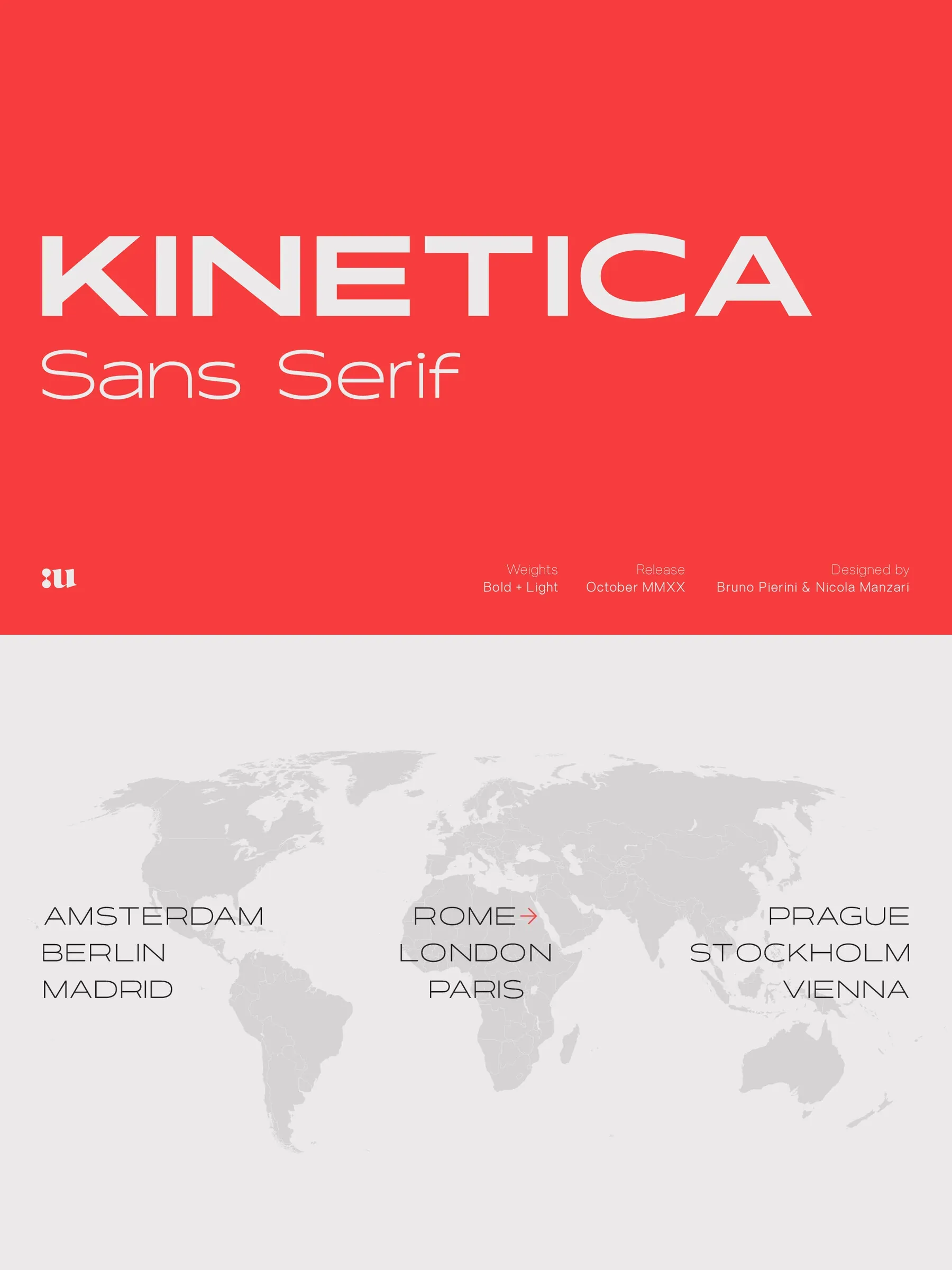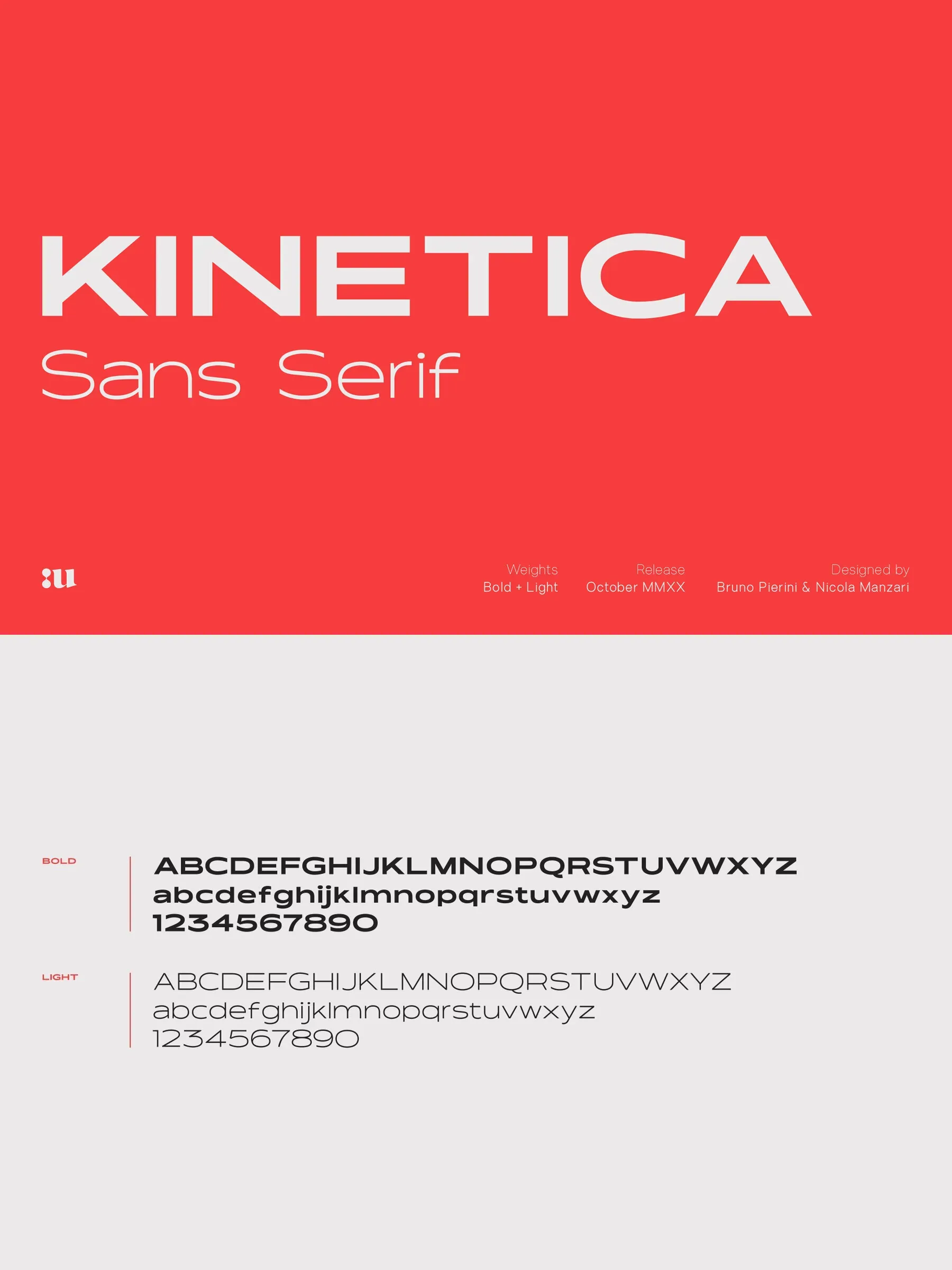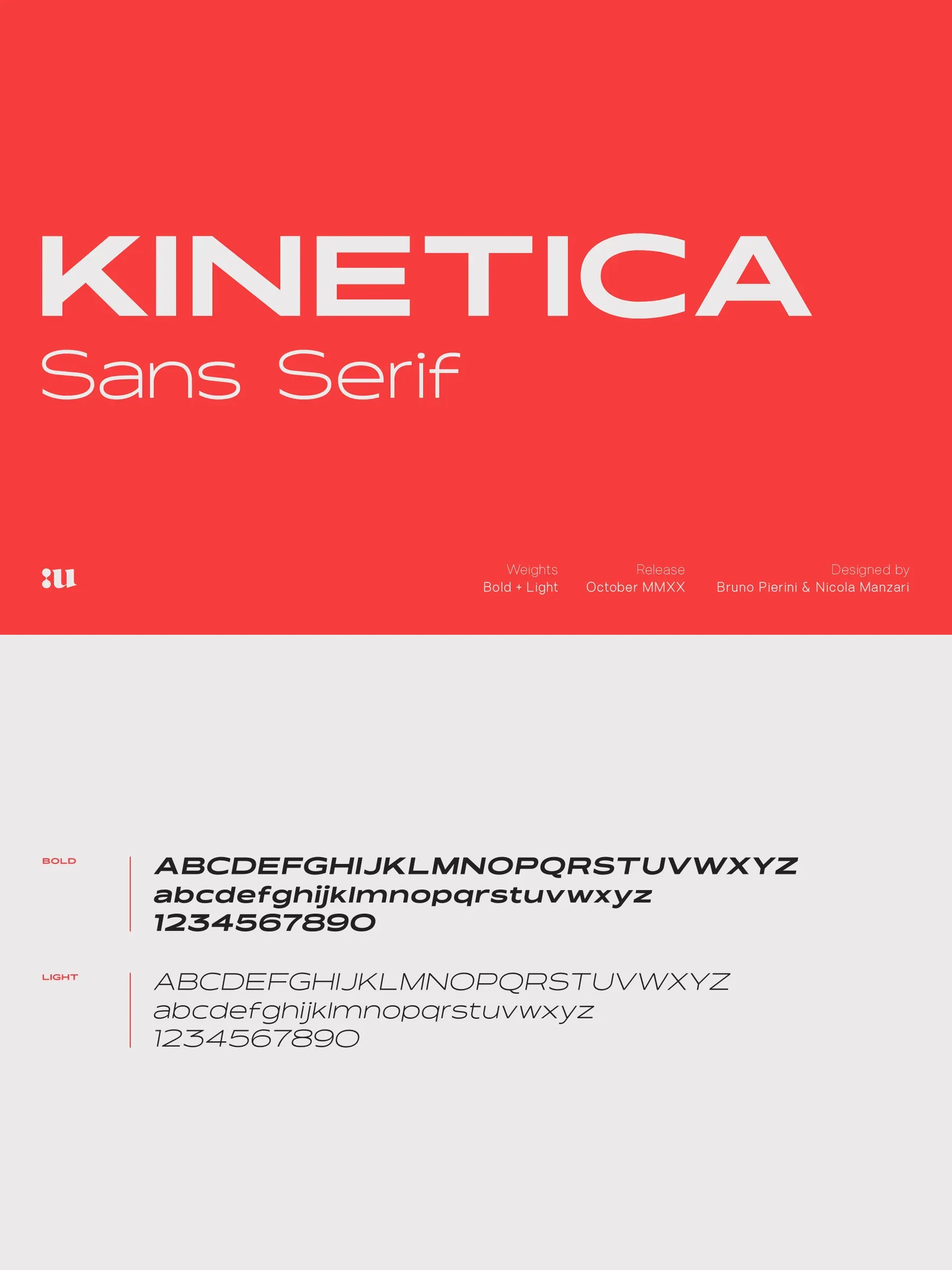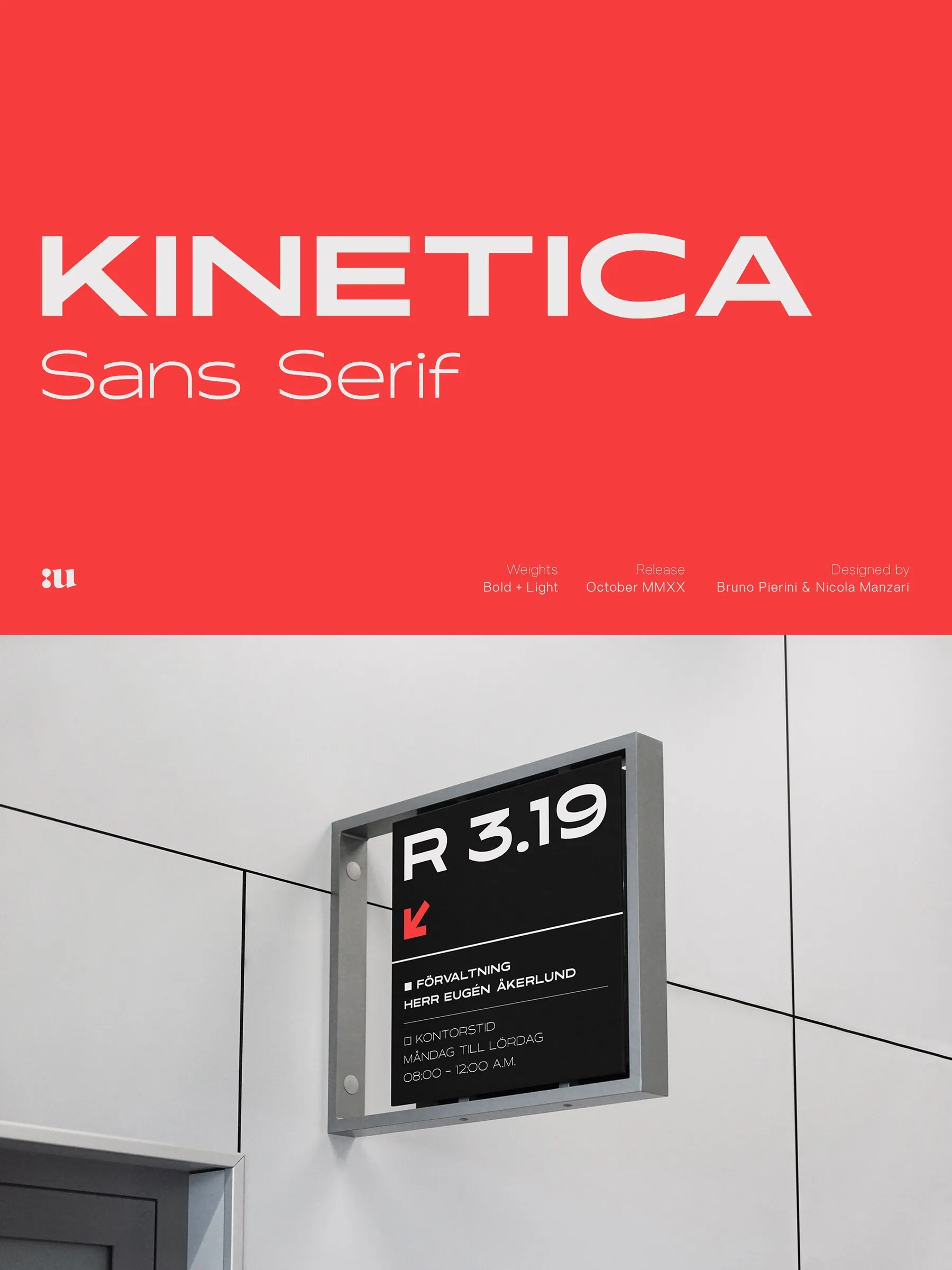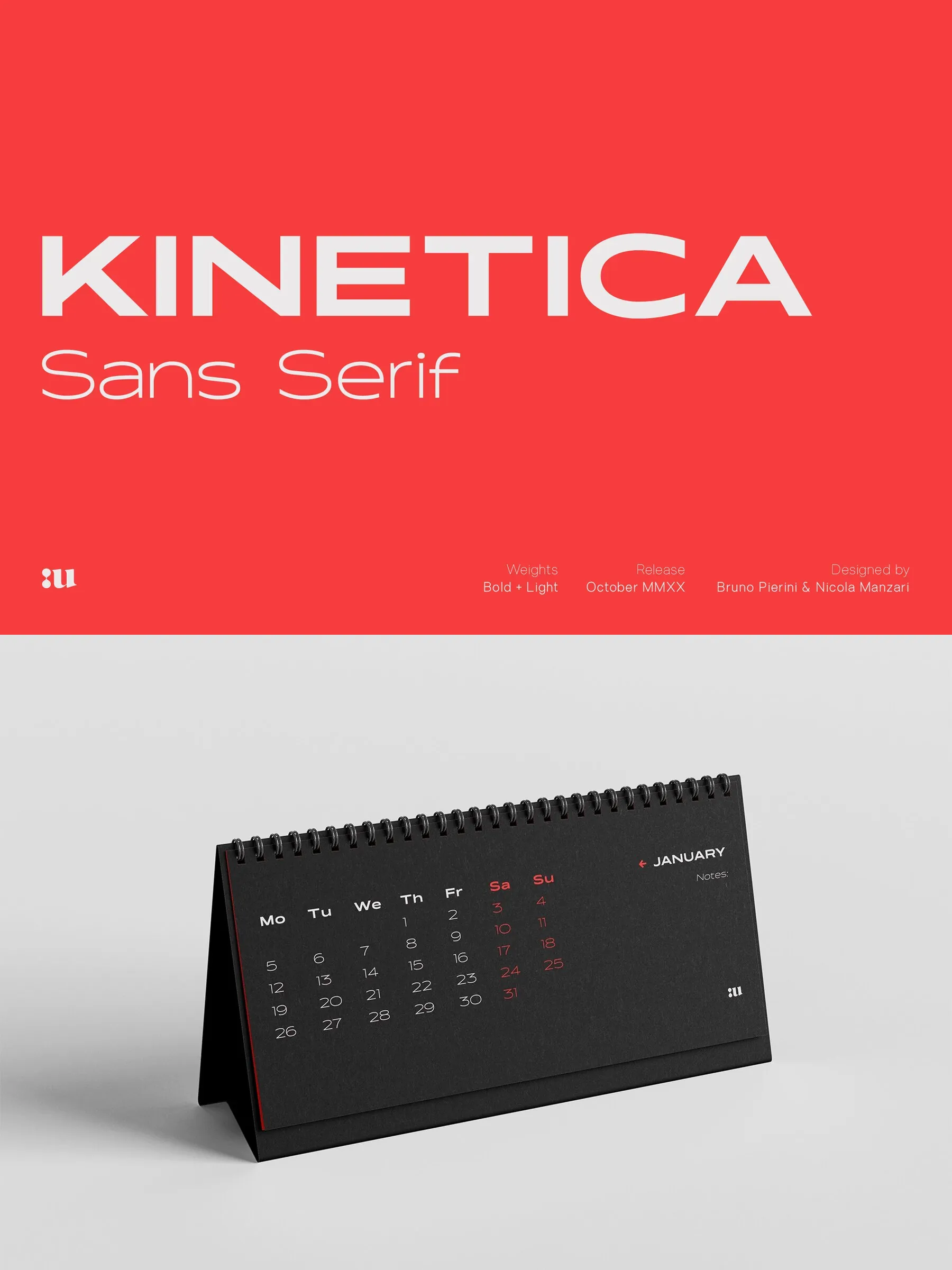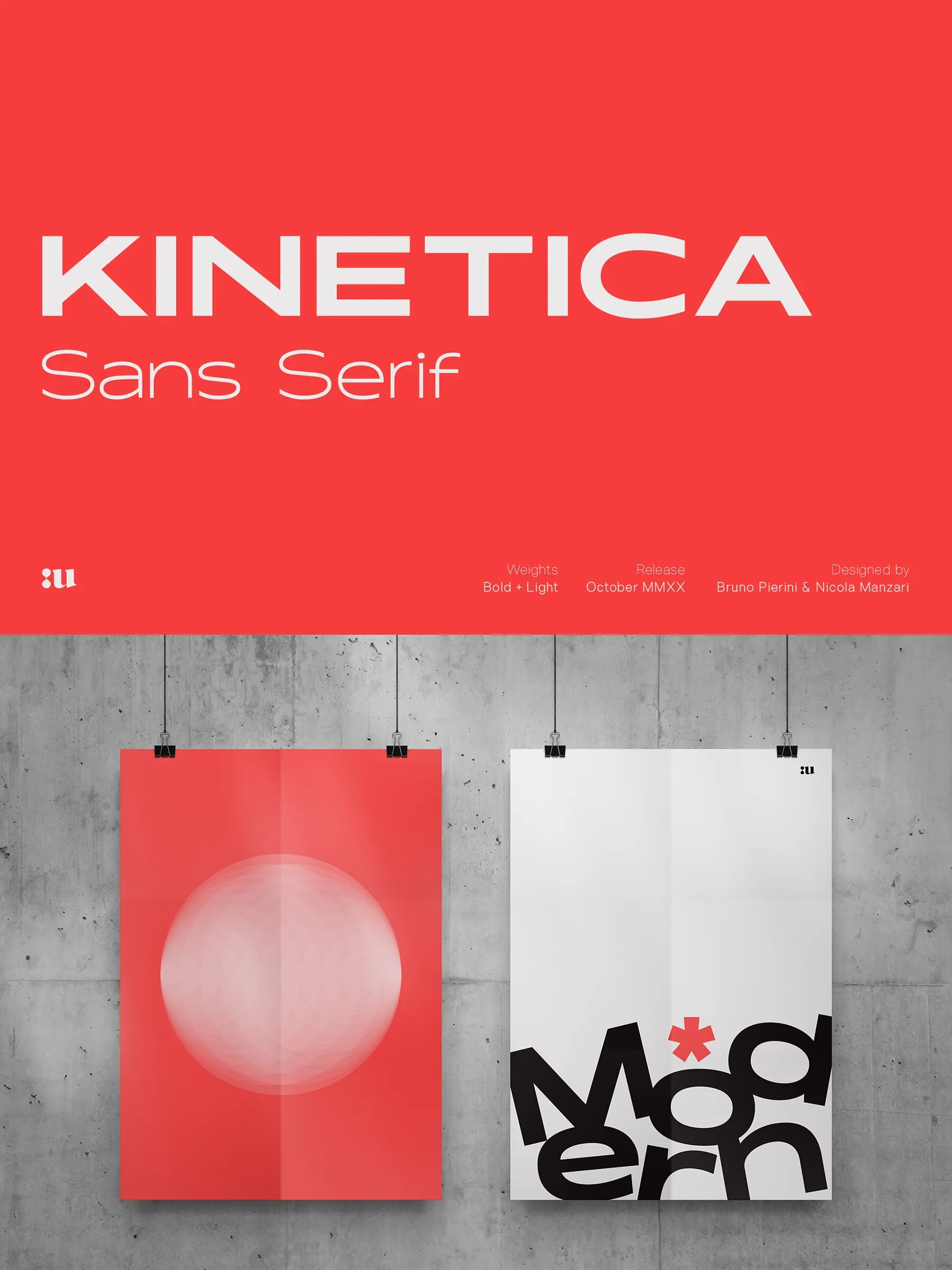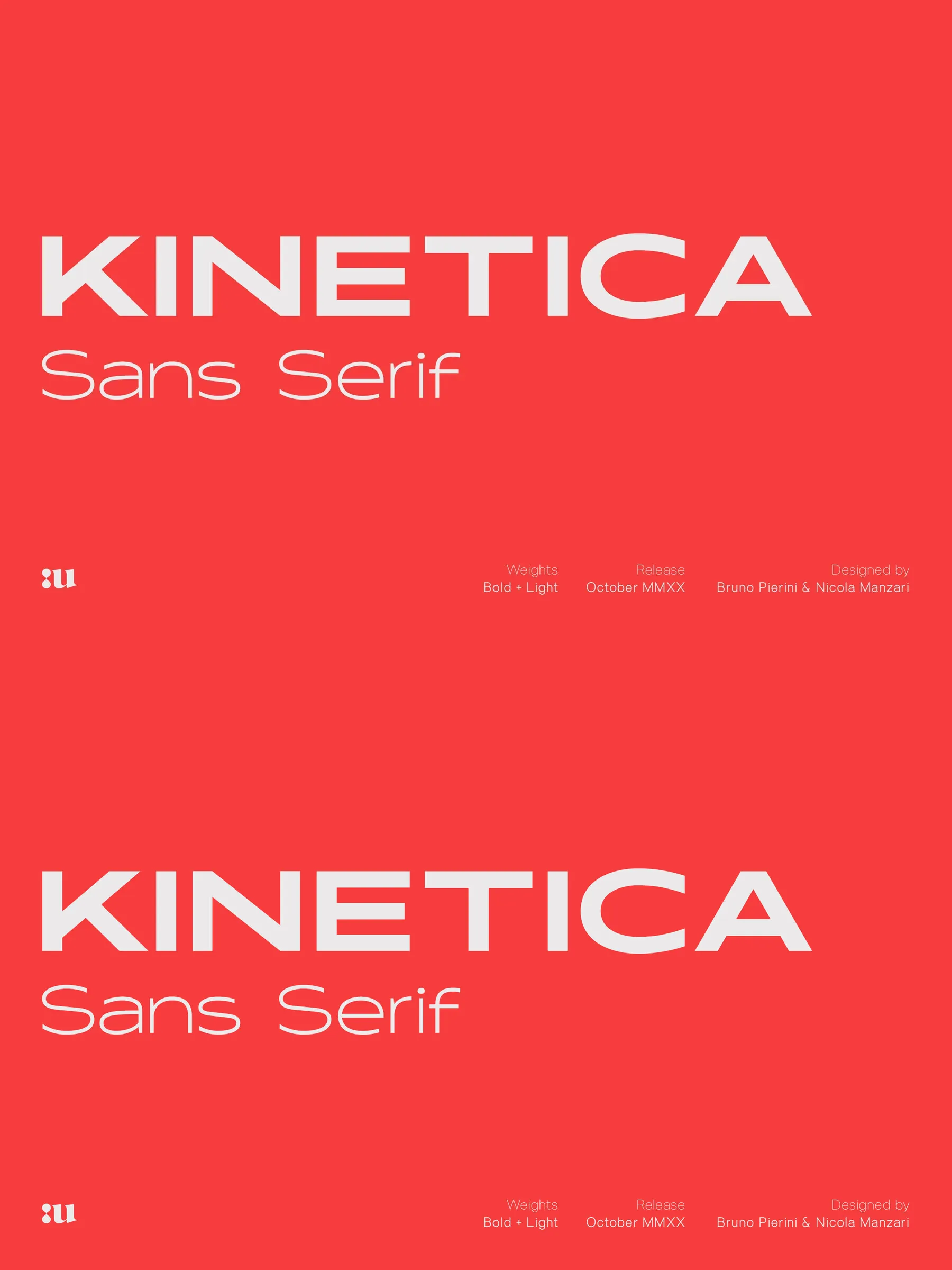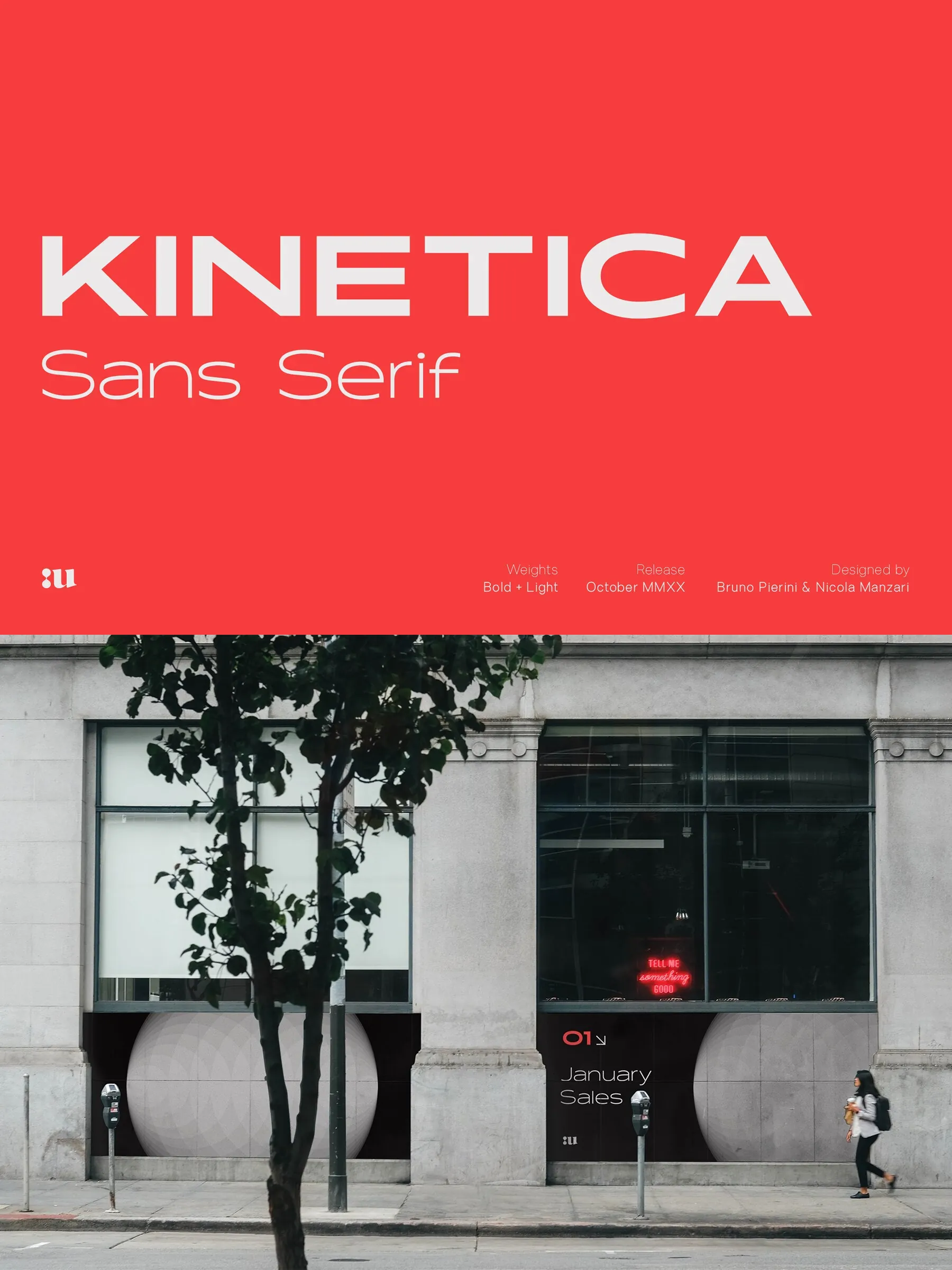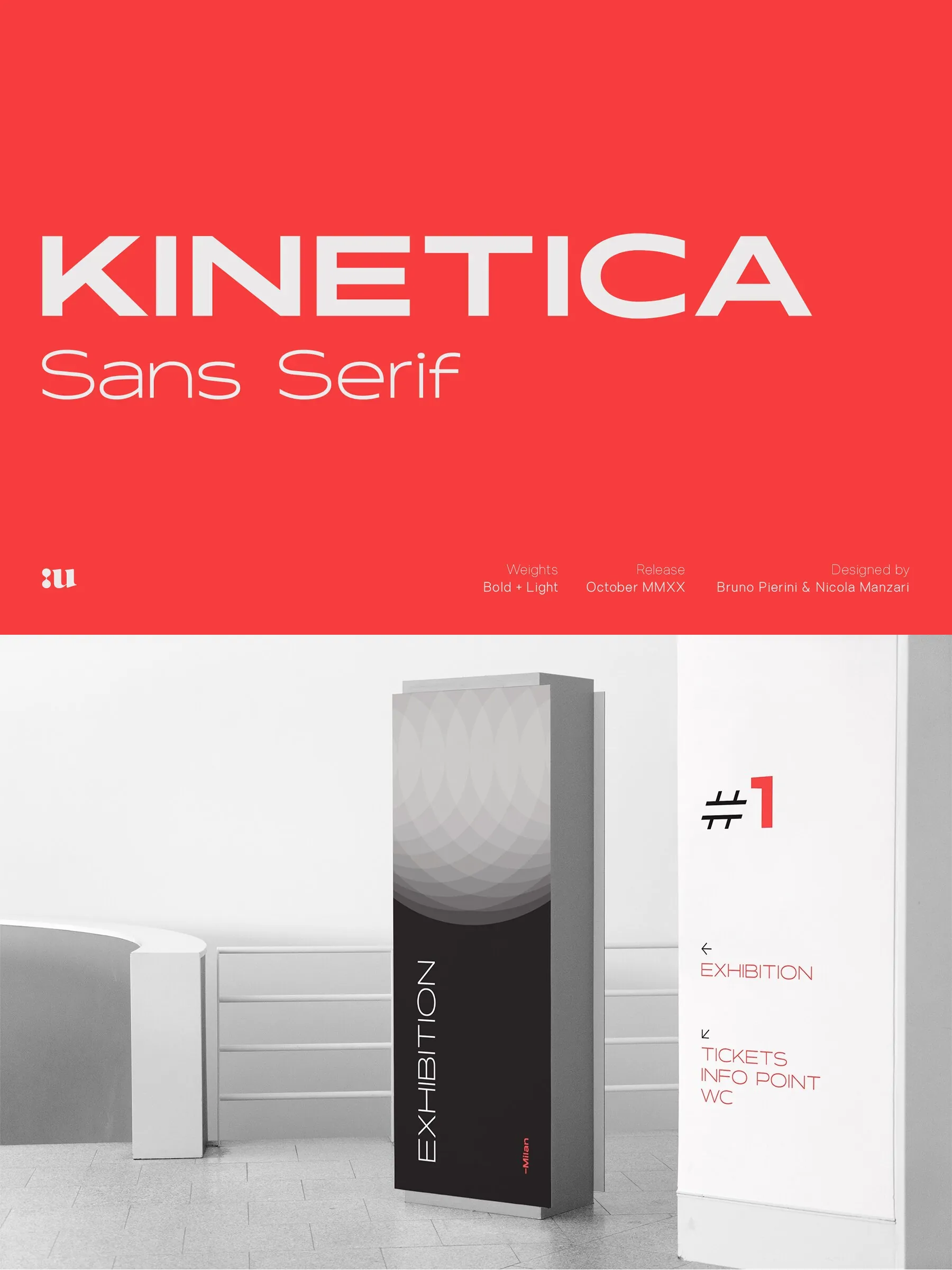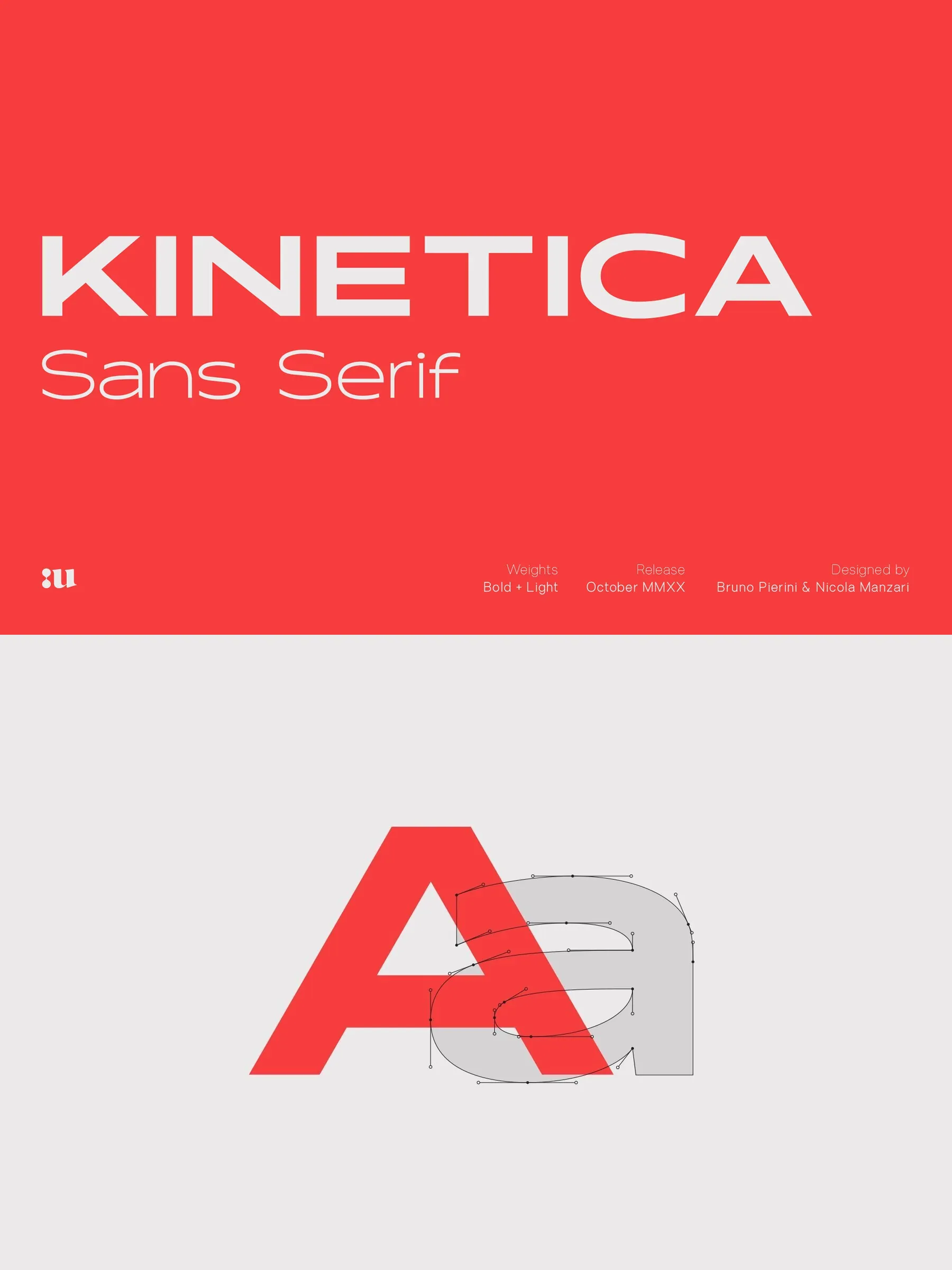
Kinetica — Wide Type, Built for Motion
Kinetica is a versatile wide typeface inspired by motion and globalization. It is suited for maximum visual impact and includes two weights with true matching obliques. The design reads clean and direct, with the confidence you want in modern branding and editorial typography.
Kinetica works as a type system that embraces the minimalist neo-grotesque look. It blends bold lines with highly refined curves and iconic geometric shifts. The Kinetica family includes two weights (Light and Bold) with their matching obliques, and it covers several languages based on the Latin alphabet. Use it for headlines, large-format prints, brand identities, social media, advertising, editorial design, and posters.
Multi-language support (Central, Eastern, Western European languages)
OpenType features (fractions, old-style numerals, roman numerals, subscript, and superscript)